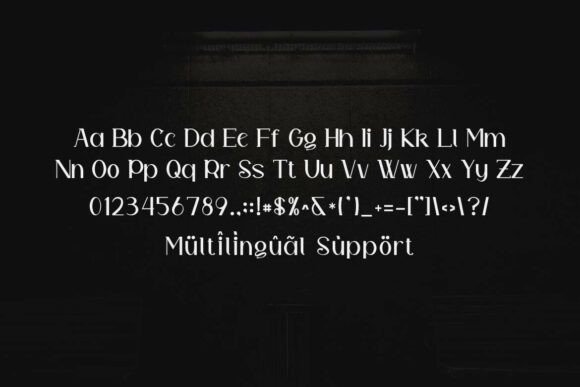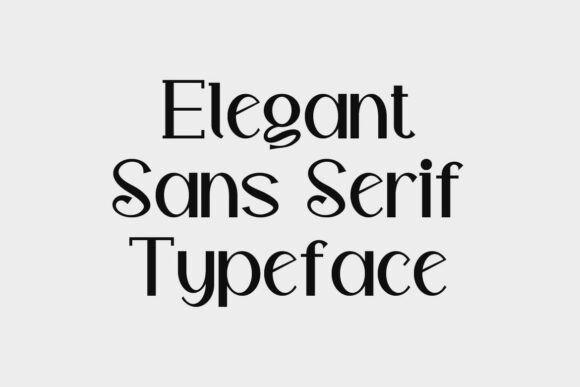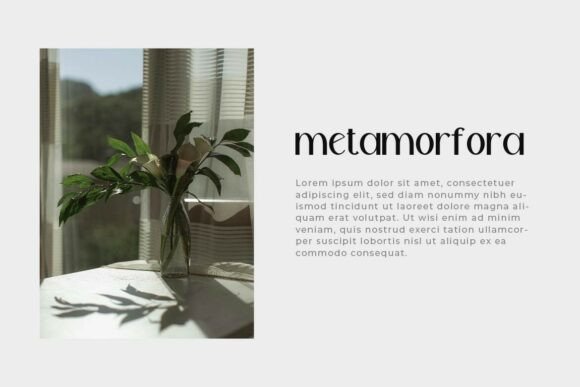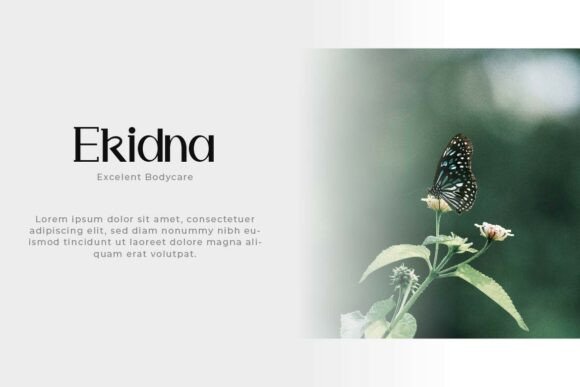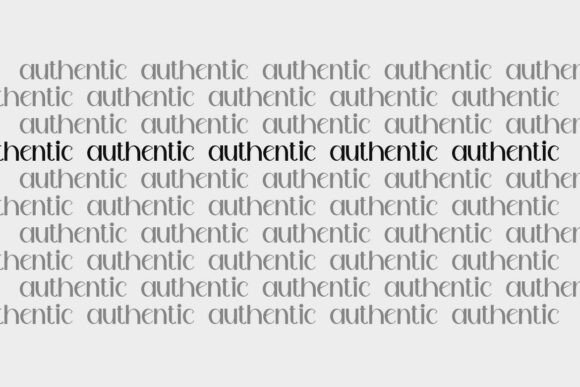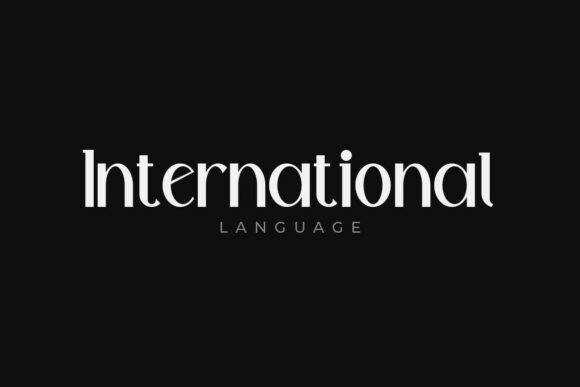
Introduction to Nakata Font
As a designer, you’ve probably found yourself staring at a blank canvas, trying to bring your creative vision to life. The blank page can be daunting, but what if you had the perfect tool to give your project the luxurious feel it deserves? For designers seeking to elevate their work, the Nakata Font is a game-changer. With its sleek, modern aesthetic, Nakata Font is the ultimate design resource for creating high-end branding and premium visual content.
Whether you’re working on a high-profile advertising campaign or a bespoke website for a luxury brand, Nakata Font’s sophisticated flair and clean lines will help you convey elegance and confidence. And the best part? You can access this high-quality font for free, making it an invaluable addition to your design toolkit.
Nakata Font
- High-quality, unique design perfect for creative projects and design resources.
- Includes a transparent background, allowing for seamless integration with various design elements.
- Features a unique and modern design, making it ideal for a wide range of creative projects.
- High-resolution design (up to 300 DPI), ensuring crisp and clear text display.
- Supports a wide range of languages, making it a versatile design resource for international projects.
Honest Review: Nakata Font
As a designer, I’m always on the lookout for unique and high-quality design resources to elevate my creative projects. Recently, I came across the Nakata Font, and I must say, it’s a gem worth mentioning.
What works well: ✨ The Nakata Font boasts a sleek and modern design, perfect for any project that requires a touch of sophistication. The font is available for free download, making it an excellent addition to any design arsenal. I also appreciate the transparent background option, which allows for seamless integration with various design elements.
Here are some of the features that caught my attention:
- Unique and modern design
Limitations: ⚠️ While the Nakata Font is an excellent addition to any design project, I do find the font selection to be somewhat limited. Additionally, some users may find the font’s modern design to be too bold or overpowering for certain projects.
Overall, I’m impressed with the Nakata Font and would recommend it to designers looking for a high-quality, modern design resource. With its sleek design and transparent background option, it’s an excellent choice for creative projects that require a touch of sophistication.
Nakata Font
The Nakata Font is a unique and versatile design resource ideal for creative projects. With its sleek and modern design, this font is perfect for adding a touch of elegance to any visual project.
Tips for Getting the Most Out of Nakata Font
To get the most out of the Nakata Font, use it on a transparent background to create a sense of depth and dimension. You can also experiment with different font sizes and colors to create a unique and eye-catching design.
The Nakata Font is ideal for a variety of creative projects, including logos, business cards, and social media graphics. It’s also perfect for use in presentations and documents where a touch of elegance is needed.